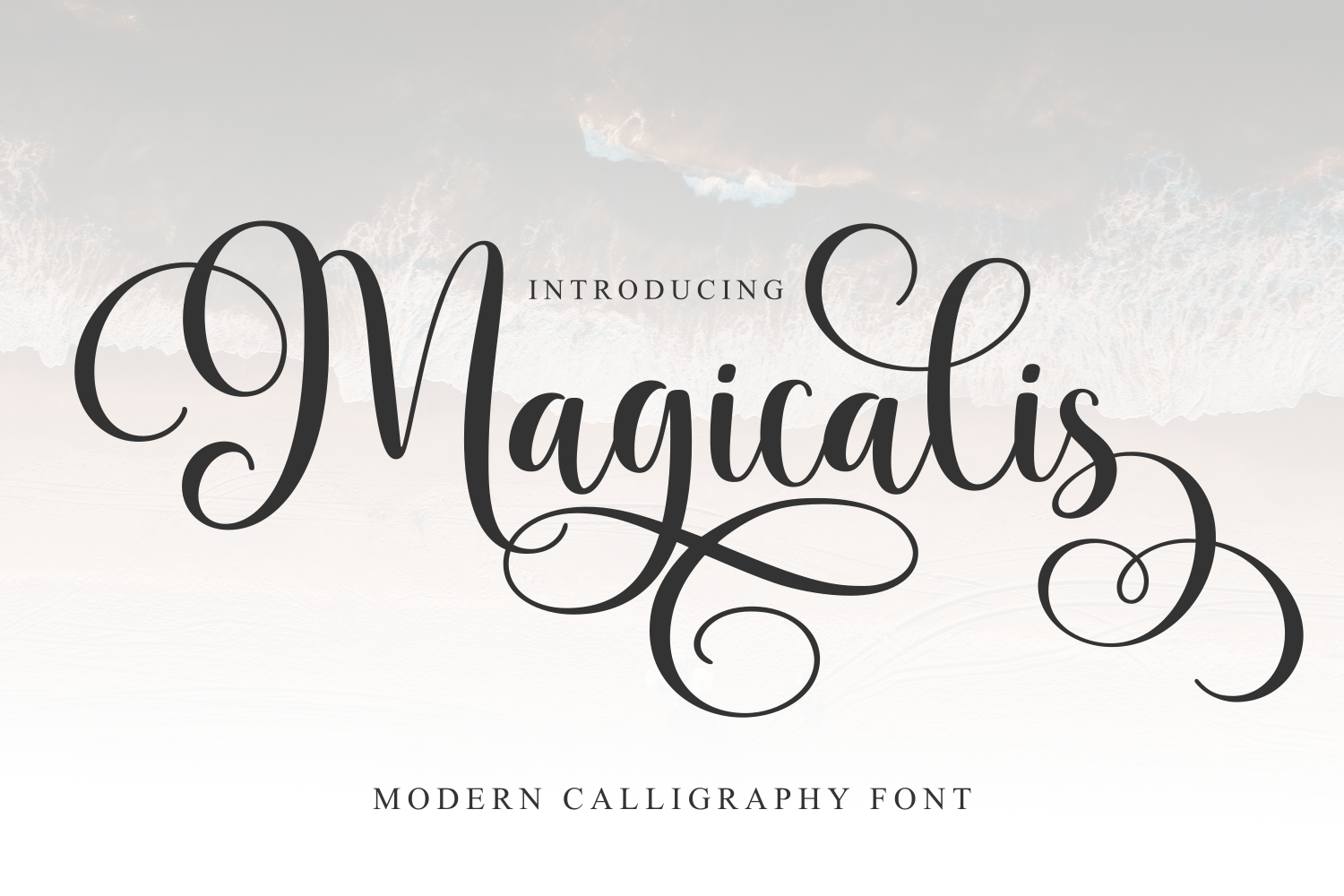
Magicalis an elegant modern calligraphy font featuring graceful curves, flowing strokes, and luxurious swashes. Perfect for wedding invitations, branding, signature logos, packaging, beauty products, social media, and high-end design projects. Its timeless charm and sophisticated style bring a refined and romantic touch to every creation.